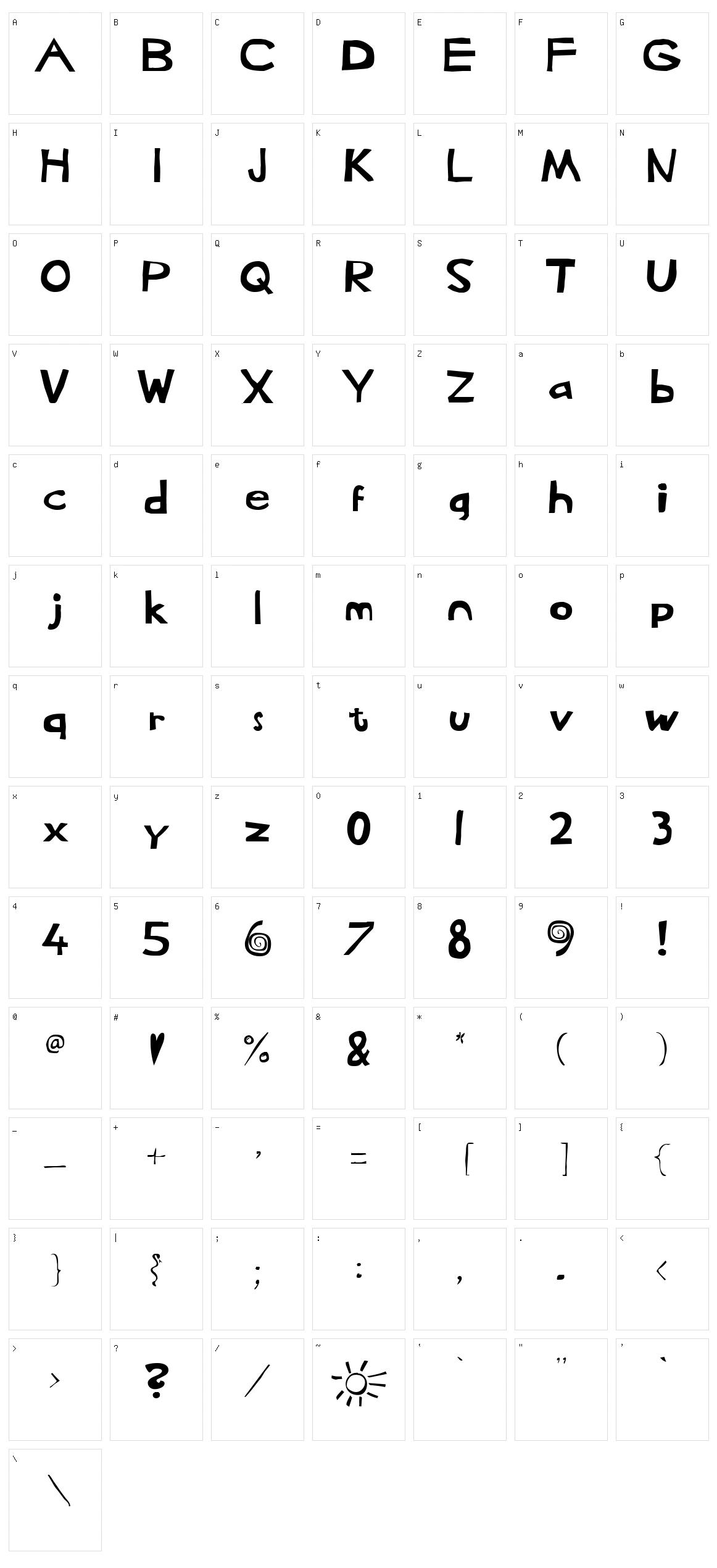
The free font Heffaklump is carefully designed by Fontomen, showcasing a thoughtful balance of creativity and usability and falls under the Cartoon font style. When you download the ZIP file, it contains only 18.53 KB of font files, making it lightweight and quick to download. Please review the license details below to understand permitted usage and distribution rights. If license information is not available, we recommend using this font for personal projects only or contacting the author directly for commercial usage permissions.